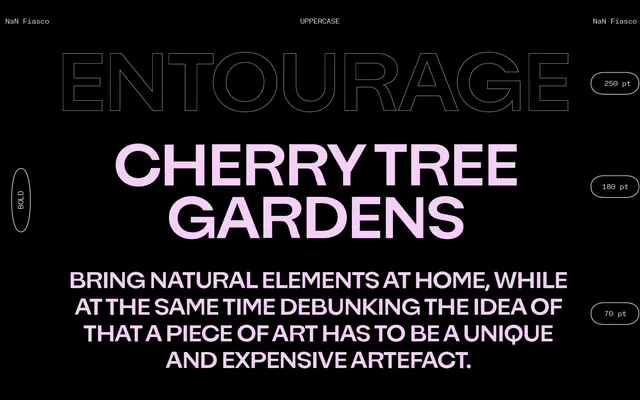
NaN Fiasco
NaN · Luke Prowse · 2016
A grotesque sans by Luke Prowse that treats letterform error, misregistration and naive construction as a design system across nine weights from Thin to Ultra.
Prowse drew NaN Fiasco between 2016 and 2021, taking slipped vinyl, overlapping posters, flipped glyphs and miscalibrated weights as its structural logic rather than as faults to correct. The result sits against the cool neutrality of its modernist sources: where a rational grotesque is composed and consistent, Fiasco turns inconsistency into a rule, giving the family an irregular warmth. Nine weights from Thin to a notably broad Ultra make it usable across display and body contexts wherever some looseness is an asset.
A sans-serif rooted in modernist grotesque conventions but systematically subverted through deliberate errata: flipped glyphs, mis-weighting, naive construction and substitute forms. The underlying structure is grotesque; the treatment is wilfully aberrant.